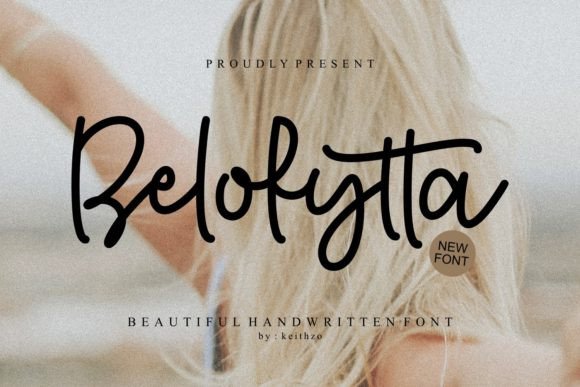
Unleash creativity and elegance with Belofytta Font, an extraordinary script font woven with elaborate curves and fluid lines. Designed to captivate, this font elevates your creative projects with a touch of grace and sophistication.
With its intricate details, Belofytta dances across your designs like a delicate brushstroke, adding a layer of charm that captivates the senses. Its smooth flow and elegant flourishes transform ordinary text into mesmerizing artworks, making it the perfect choice for wedding invitations, social media graphics, branding materials, and more.
Belofytta is a versatile artist, capable of expressing diverse emotions and styles. Its graceful curves and sweeping lines evoke a sense of sophistication and romance, while its PUA-encoded nature grants you effortless access to a vast array of glyphs and swashes, providing endless possibilities for customization.
Indulge in the beauty of Belofytta and let your creativity flourish. Elevate your designs to new heights with this elegant script, leaving an unforgettable impression on your audience. Embrace the charm of Belofytta and let your artistic vision shine brighter than ever before.